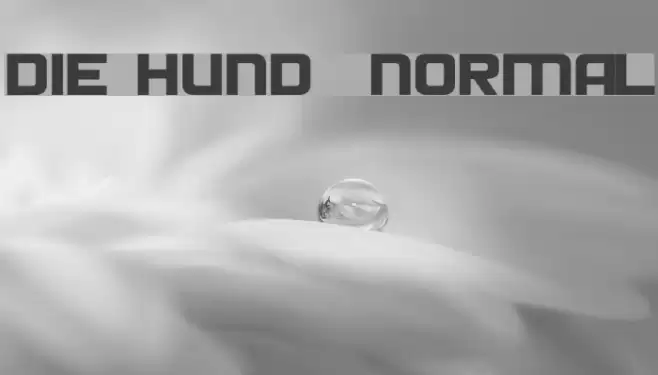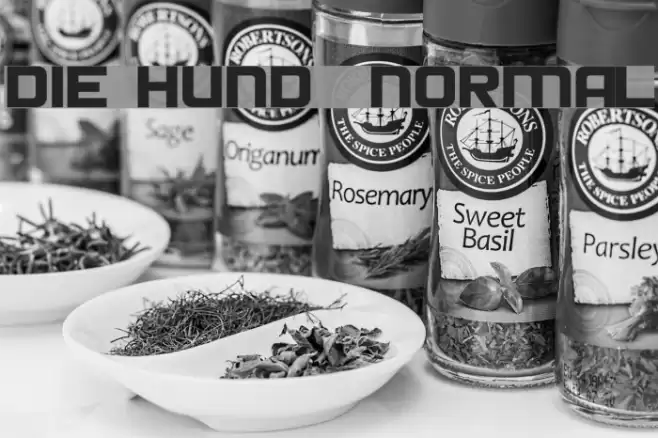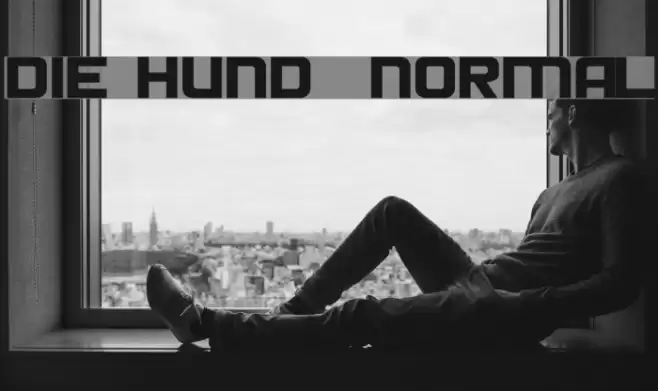
Die Hund Normal Font
Die Hund Normal Description
This font features a bold, geometric design with a modern and futuristic aesthetic. The characters are constructed with thick, uniform strokes that create a strong visual impact. The angular shapes and sharp edges give it a distinctive, tech-inspired look. The uppercase letters are particularly striking, with a consistent height and width that enhance readability. The font's clean lines and lack of serifs contribute to its contemporary style, making it suitable for projects that require a bold and assertive typeface.
A bold, geometric font with a modern, tech-inspired aesthetic from Uncategorized fonts.
- Proposed Projects: Ideal for technology branding, video game titles, posters, and futuristic design projects.